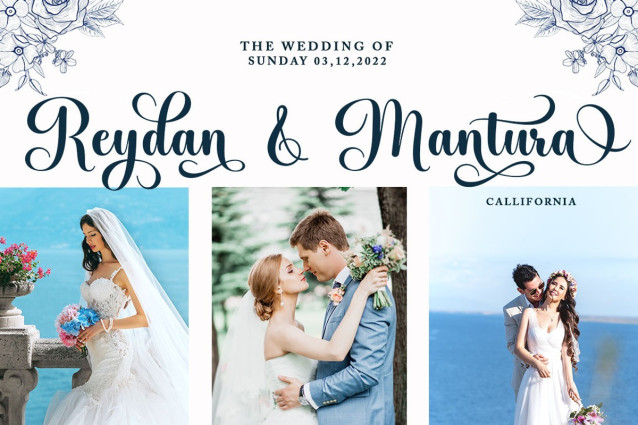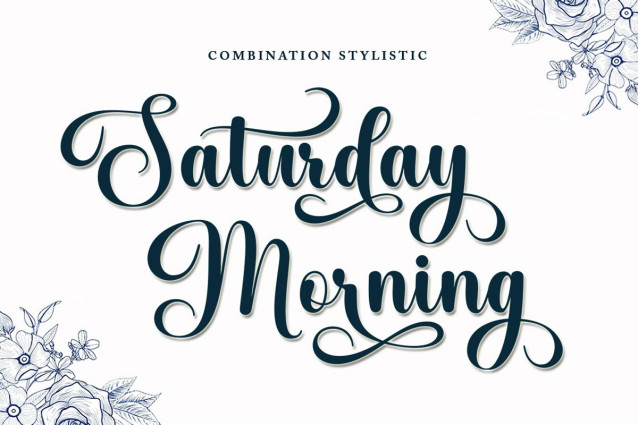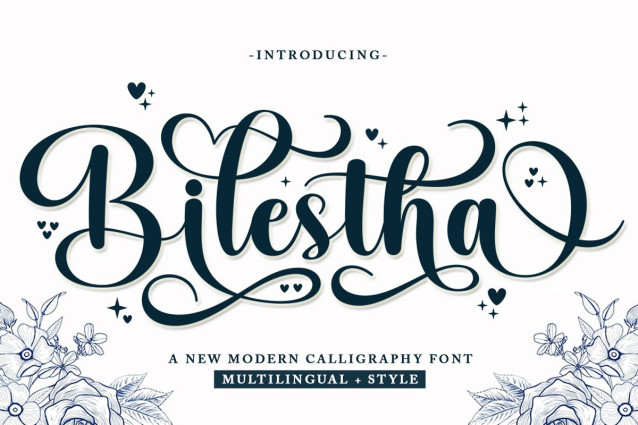
Bilestha Font
Bilestha Font by Bungletter 11,172 downloads
Bilestha Font
Bilestha Font is attractive because it is sleek, clean, feminine, sensual, glamorous, simple and very easy to read, thanks to its many beautiful letter relationships. I also offer a decent number of stylistic alternatives for some of the letters. Classic style is very suitable to be applied in various formal forms such as invitations, labels, restaurant menus, logos, fashion, make up, stationery, novels, magazines, books, greeting/wedding cards, packaging, labels or all kinds of advertising purposes. . .